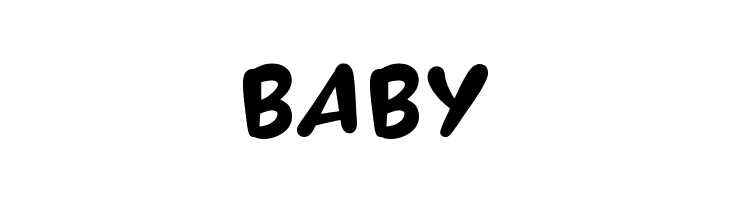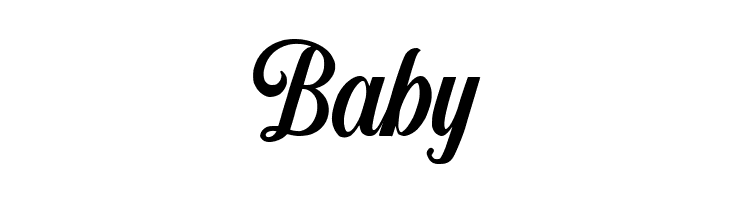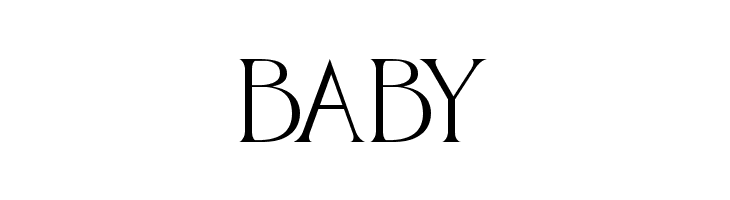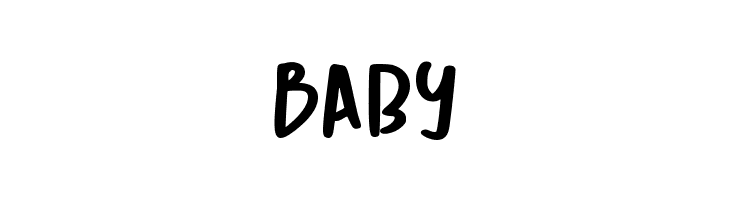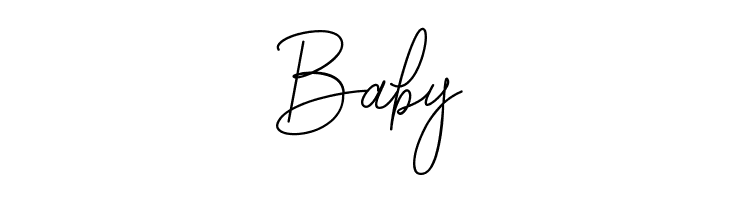
A decorative font with a blend of modern and vintage styles, featuring ornate uppercase and structured lowercase letters.
A playful, handwritten font with dynamic strokes and a casual style.
Handwritten cursive script font.
A graceful, cursive script font with elegant, flowing letters.
A bold, modern font with strong, uniform strokes ideal for impactful text.
A bold, flowing script font with elegant, cursive letterforms.
A bold, playful handwritten font with a lively and energetic style.
A bold, decorative font with a playful, chunky style.
An elegant serif typeface with tall, slender letterforms and moderate contrast.
A bold, playful handwritten font with rounded, irregular letterforms.